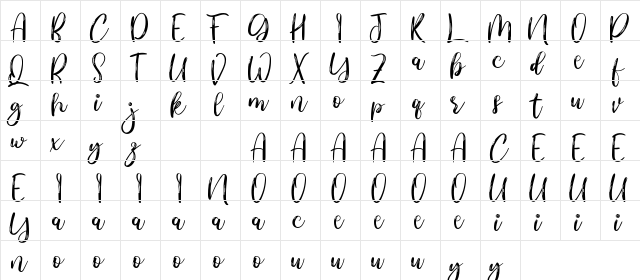
Nhadiem Elans Demo Regular
| Foundry | Edric Studio |
| Designer | Fajar Saepul Rohman & Sarah Suci Pauziah |
Nhadiem Elans Demo is a composed and adaptable typeface that performs quietly and consistently across a wide range of design contexts.